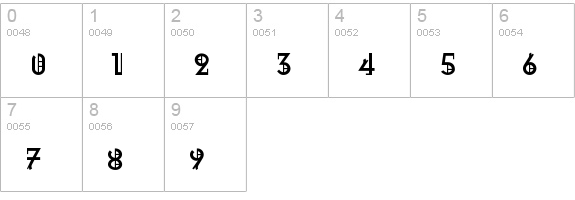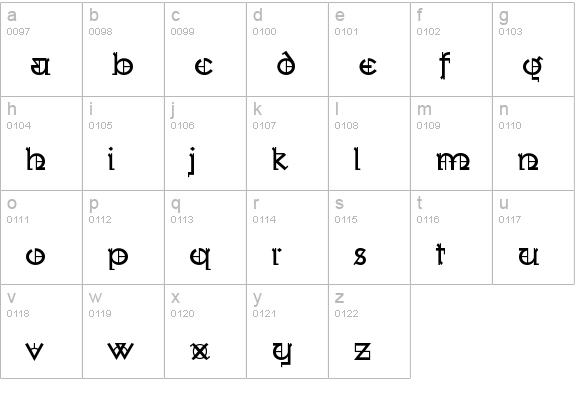
WexfordOakley-Regular Font Details
WexfordOakley-Regular is the standard, neutral variant in the WexfordOakley typeface family \xE2\x80\x94 well suited to general body text, paragraphs, and standard typographic work.
WexfordOakley-Regular is a versatile and elegant font that is perfect for adding a touch of sophistication to any design project. This font features clean lines and a timeless appeal that will elevate your typography to new heights. Whether you're designing a logo, creating a website, or working on a print project, WexfordOakley-Regular is sure to make a lasting impression. One of the best things about WexfordOakley-Regular is that it is free to download at FontsMarket.com. That's right, you can get this stunning font without spending a dime. This makes it a great option for designers on a budget or anyone who appreciates high-quality fonts at no cost. WexfordOakley-Regular is not only visually appealing, but it is also highly legible, making it ideal for both large and small text sizes. Its balanced proportions and carefully crafted letterforms ensure optimal readability, ensuring that your message is conveyed clearly and effectively. This font is also incredibly versatile, making it suitable for a wide range of design purposes. It can effortlessly adapt to various styles and themes, from modern and minimalist to classic and vintage. Its versatility extends to various media, including print, web, and mobile applications. In addition to its aesthetic appeal and versatility, WexfordOakley-Regular is also easy to work with. The font is available in multiple file formats, including OTF and TTF, ensuring compatibility across different design software and platforms. Its straightforward and well-organized character set simplifies the design process, allowing you to focus on bringing your creative vision to life. Whether you're a professional designer or a hobbyist, WexfordOakley-Regular is a font that you don't want to miss. Its combination of beauty, versatility, and ease of use makes it a valuable addition to any font collection. So why wait? Head over to FontsMarket.com and download WexfordOakley-Regular for free today, and take your designs to the next level.